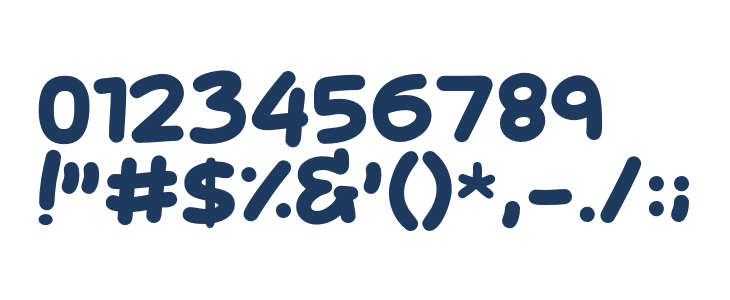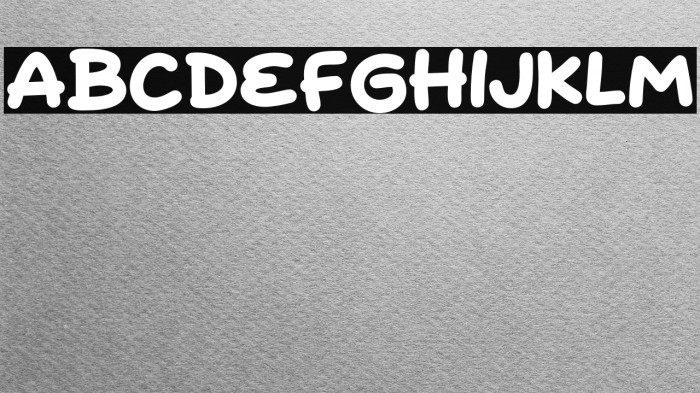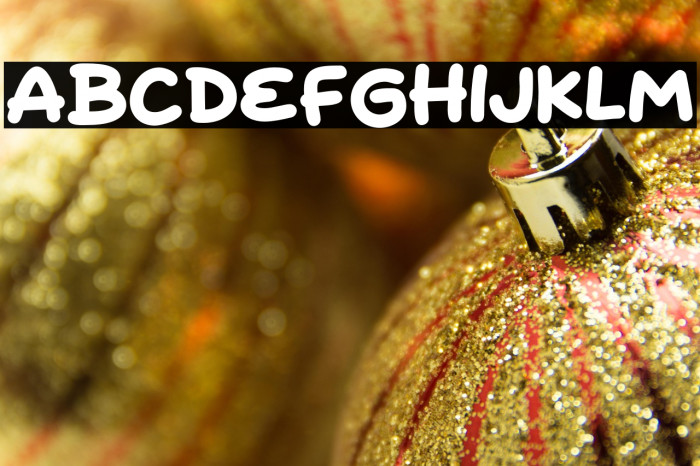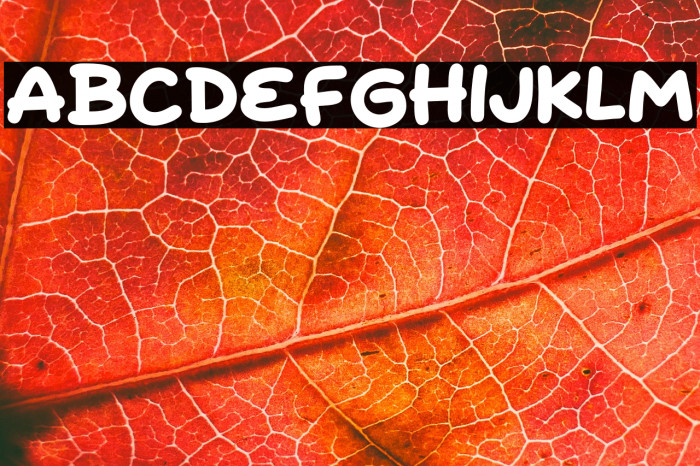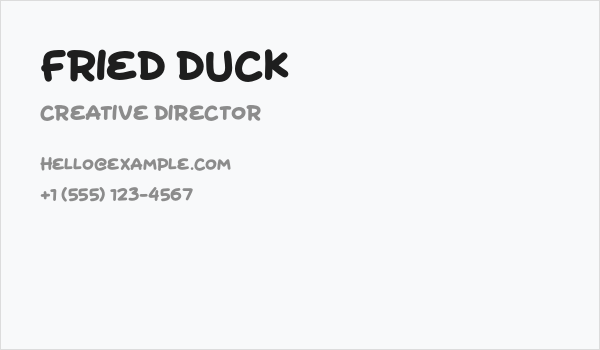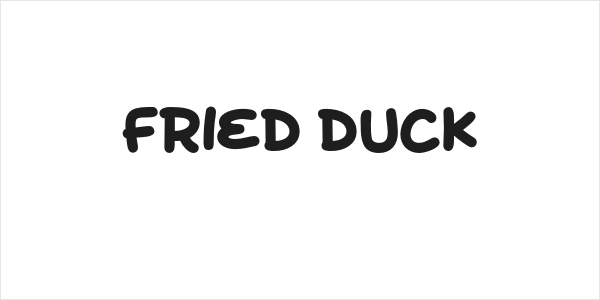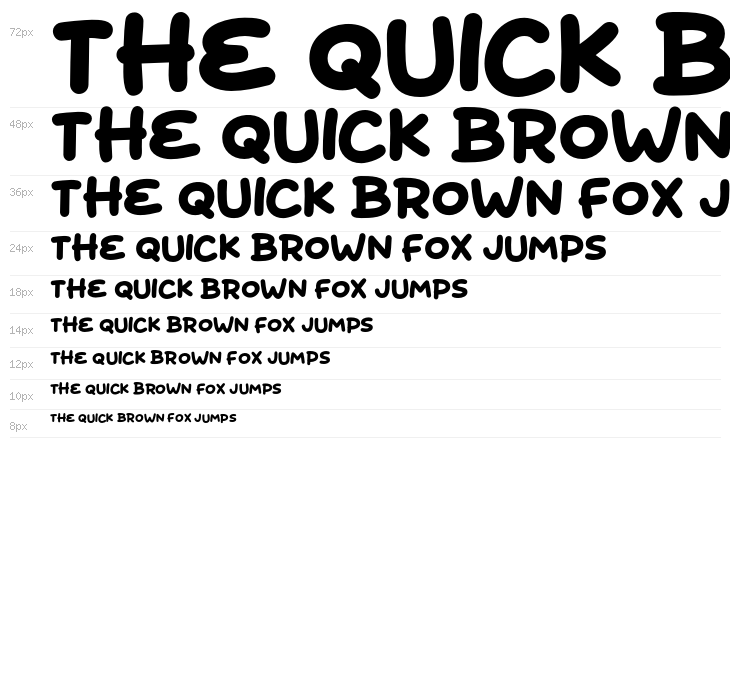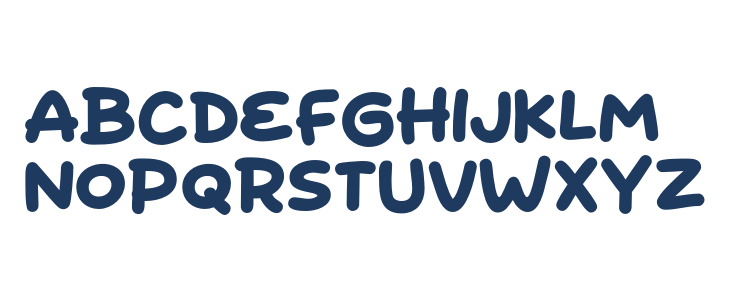
Fried Duck Font
Fried Duck Description
This playful and bold font features rounded, thick strokes that give it a friendly and approachable appearance. The characters are slightly irregular, adding a whimsical touch that makes it stand out. The uppercase and lowercase letters maintain a consistent style, with a slight slant that adds to the dynamic feel. The numbers and special characters are equally bold and rounded, ensuring uniformity across all glyphs. This font's unique style makes it ideal for projects that require a fun and engaging look.
Overall StylePlayful
Proposed ProjectsIdeal for children's books, playful branding, posters, and social media graphics.